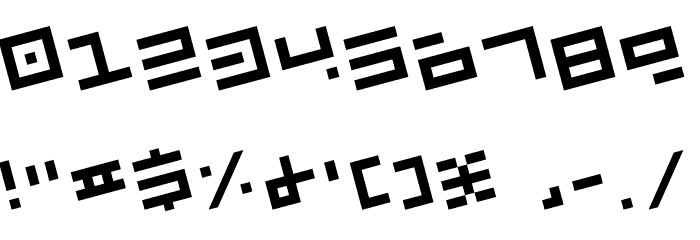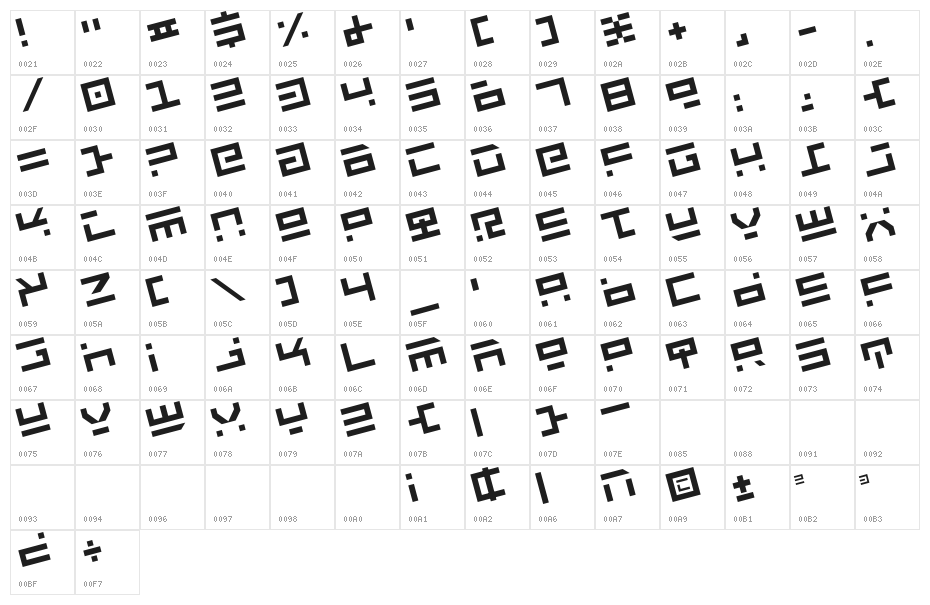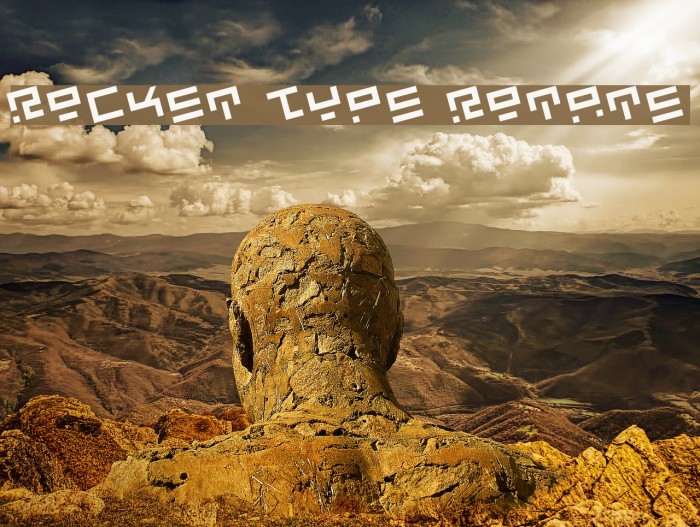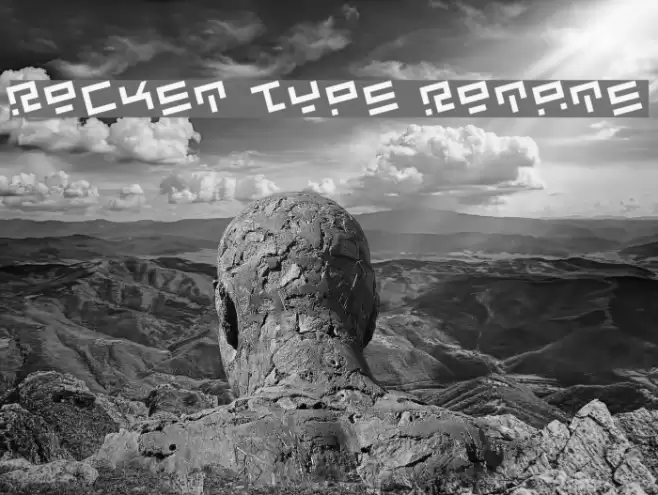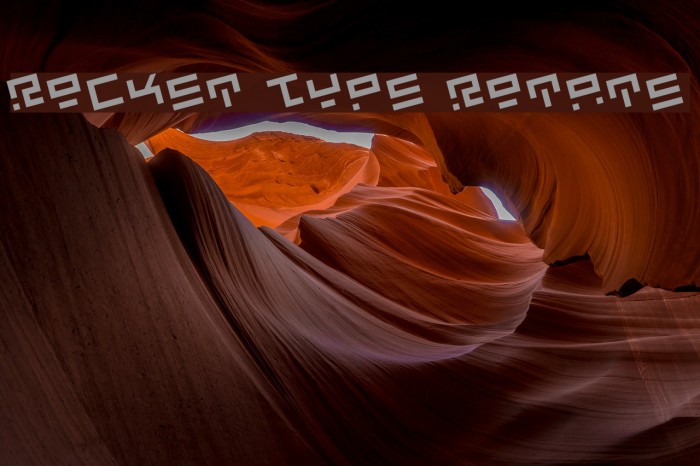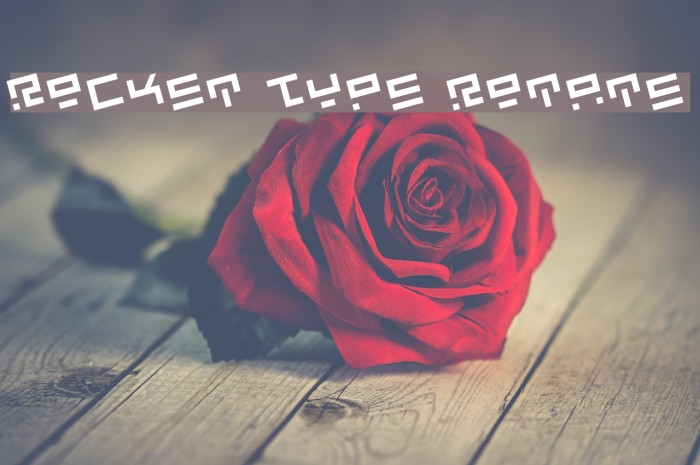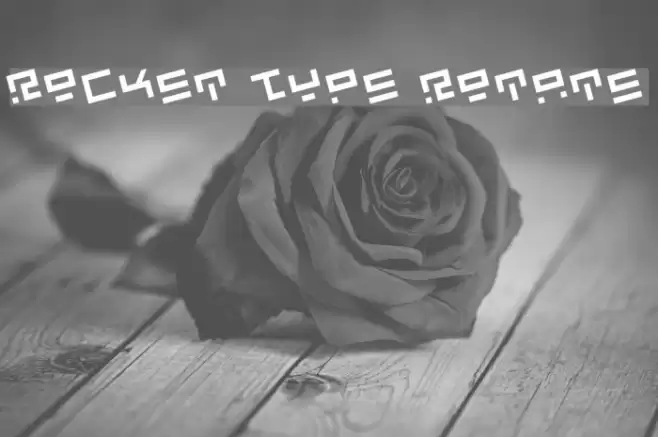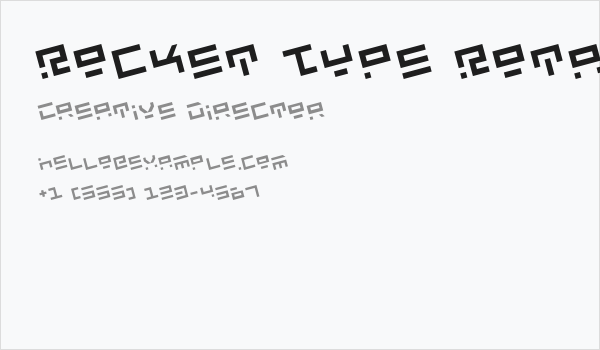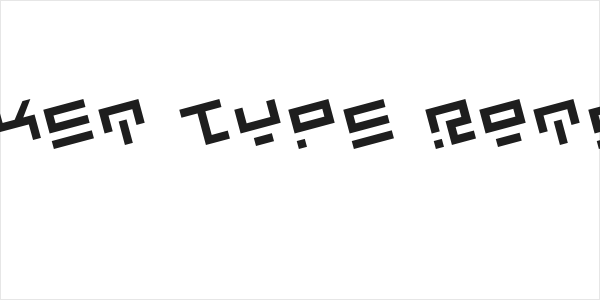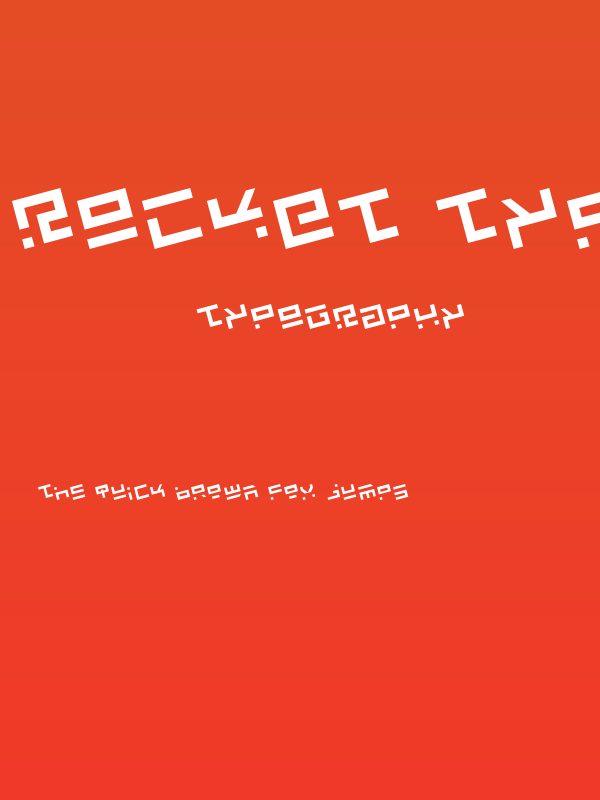
Rocket Type Rotate Font
Rocket Type Rotate Description
This font features a bold, geometric design with a futuristic and angular aesthetic. Each character is constructed with thick, straight lines and sharp angles, giving it a distinct, modern look. The letters are slightly rotated, adding a dynamic and edgy feel. The font maintains a consistent weight throughout, with minimal contrast between strokes. Its unique style makes it stand out, ideal for projects that require a strong visual impact. The characters are evenly spaced, ensuring readability while maintaining its bold presence.
| Proposed Projects | Ideal for sci-fi themed projects, technology branding, video game titles, and modern posters. |